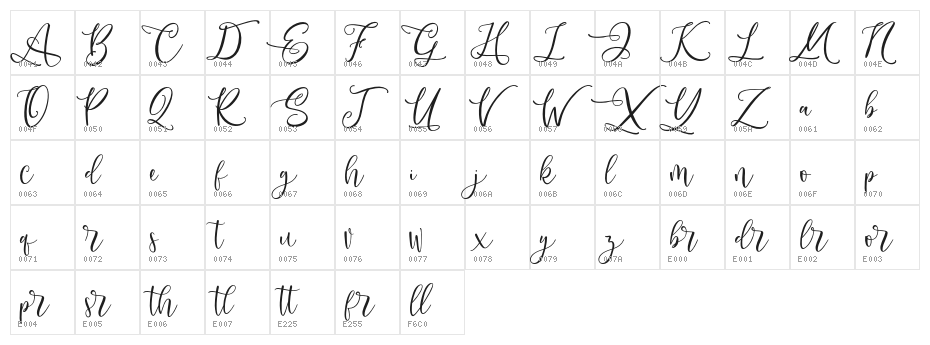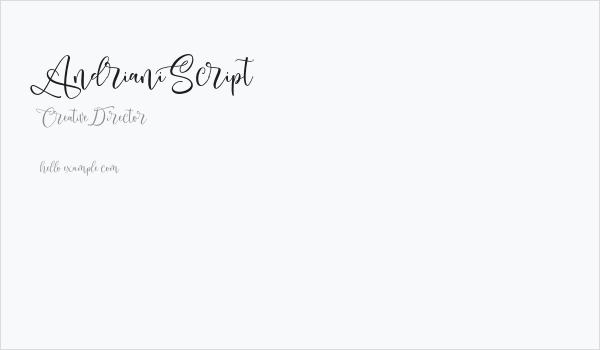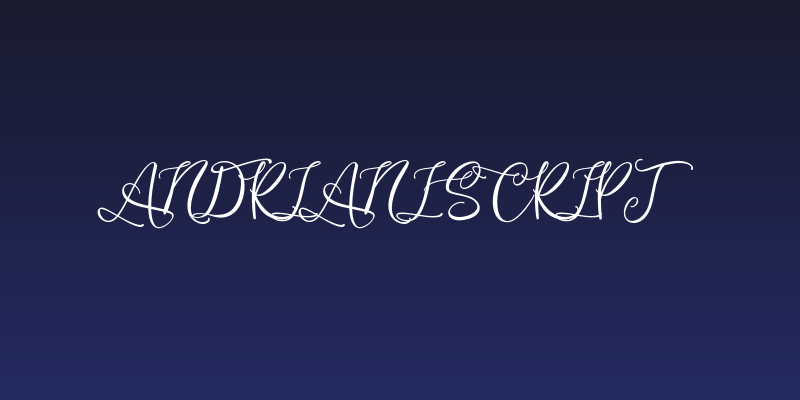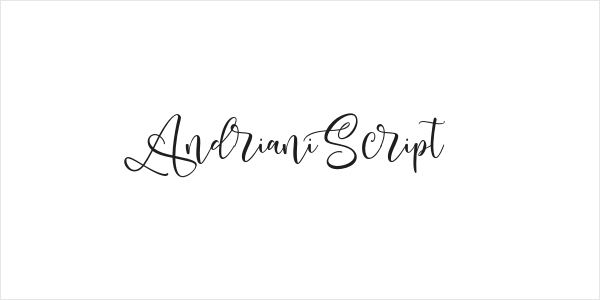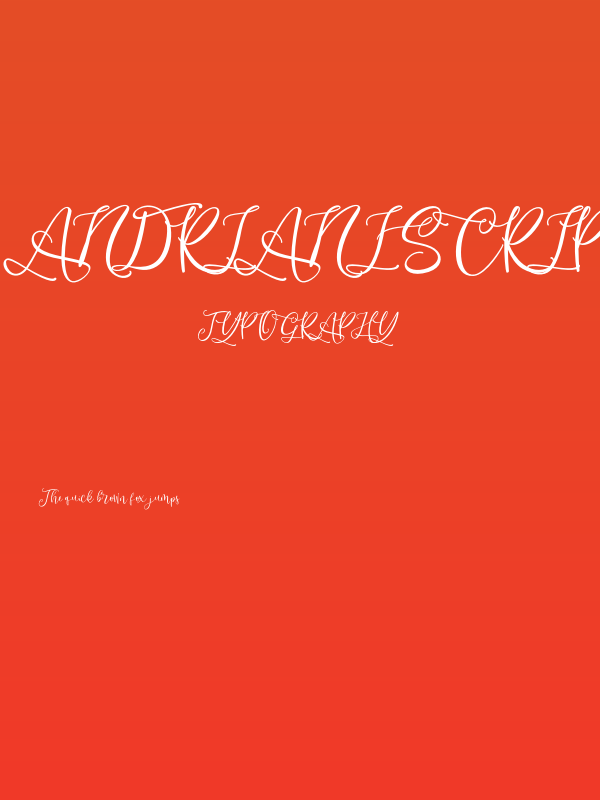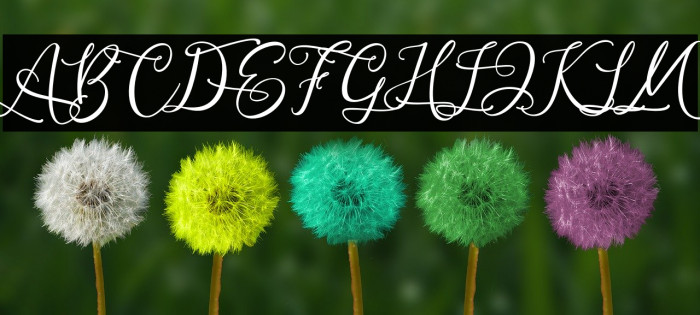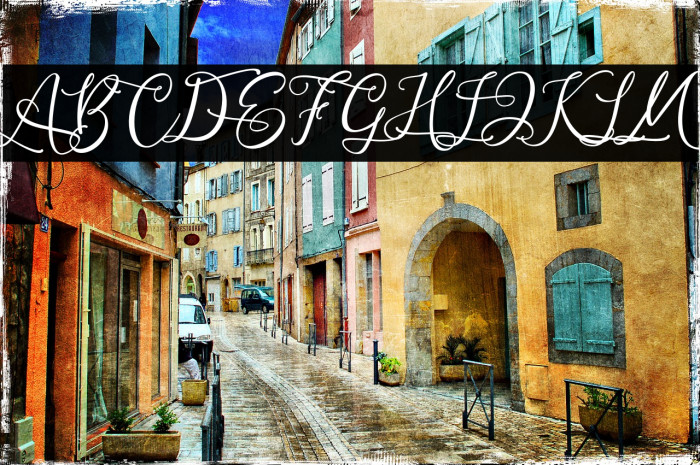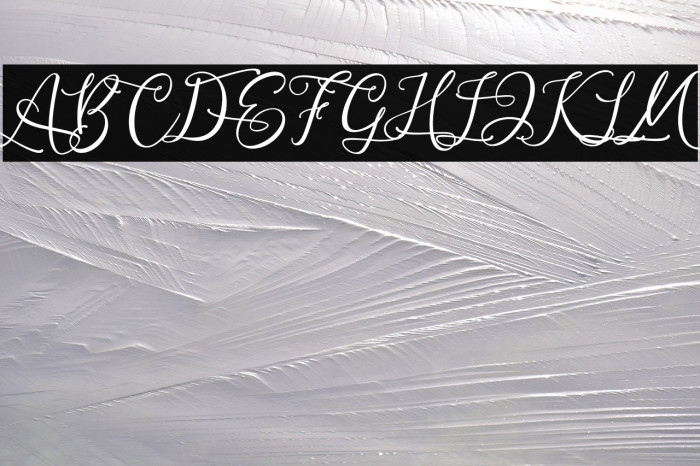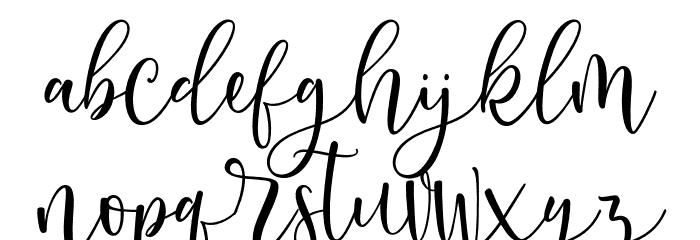
AndrianiScript Font
AndrianiScript Description
This elegant script font features flowing, interconnected letters that evoke a sense of sophistication and grace. The uppercase characters are adorned with intricate loops and swashes, adding a decorative flair. The lowercase letters maintain a consistent style, with smooth curves and a slightly slanted orientation, enhancing the handwritten feel. The font's overall appearance is both artistic and readable, making it suitable for a variety of creative applications. Its unique character shapes and fluidity make it stand out, offering a touch of elegance to any design.
| Overall Style | Elegant, Decorative |
| Use Case | Logos, Invitations, Decorative text |
| Proposed Projects | Ideal for wedding invitations, greeting cards, branding, and elegant logo designs. |